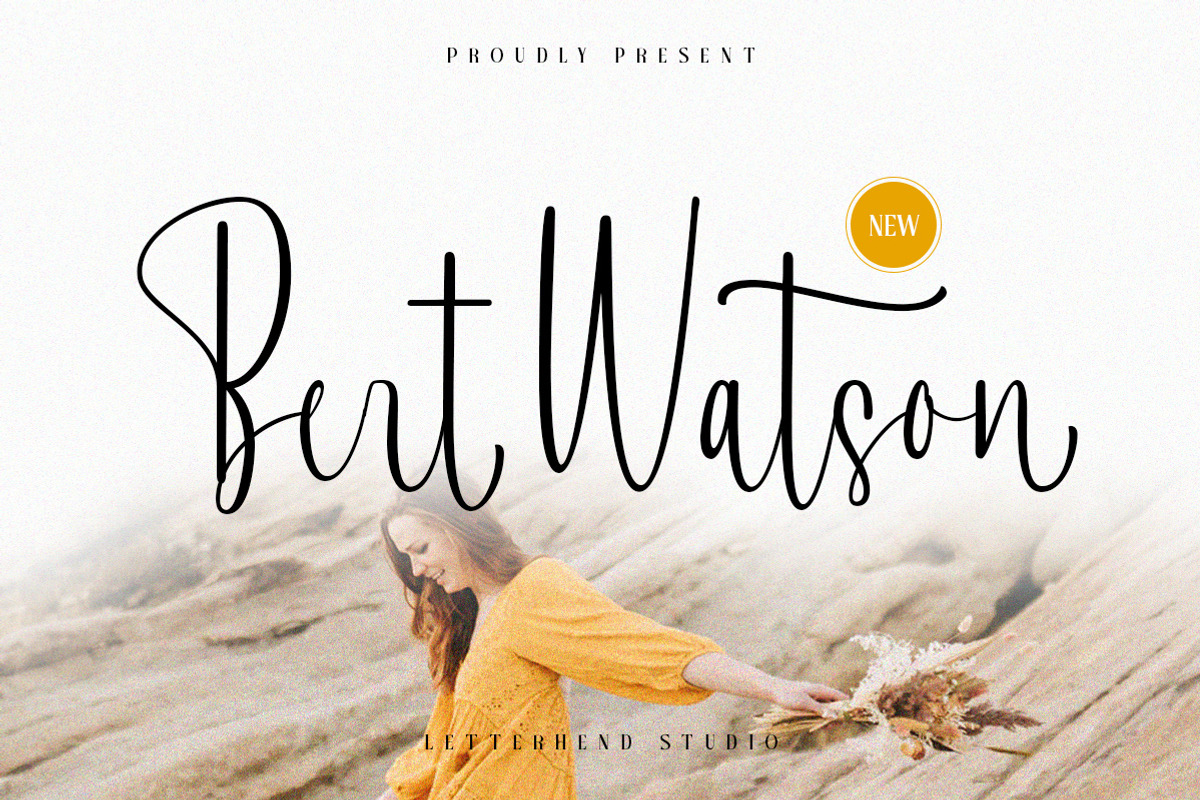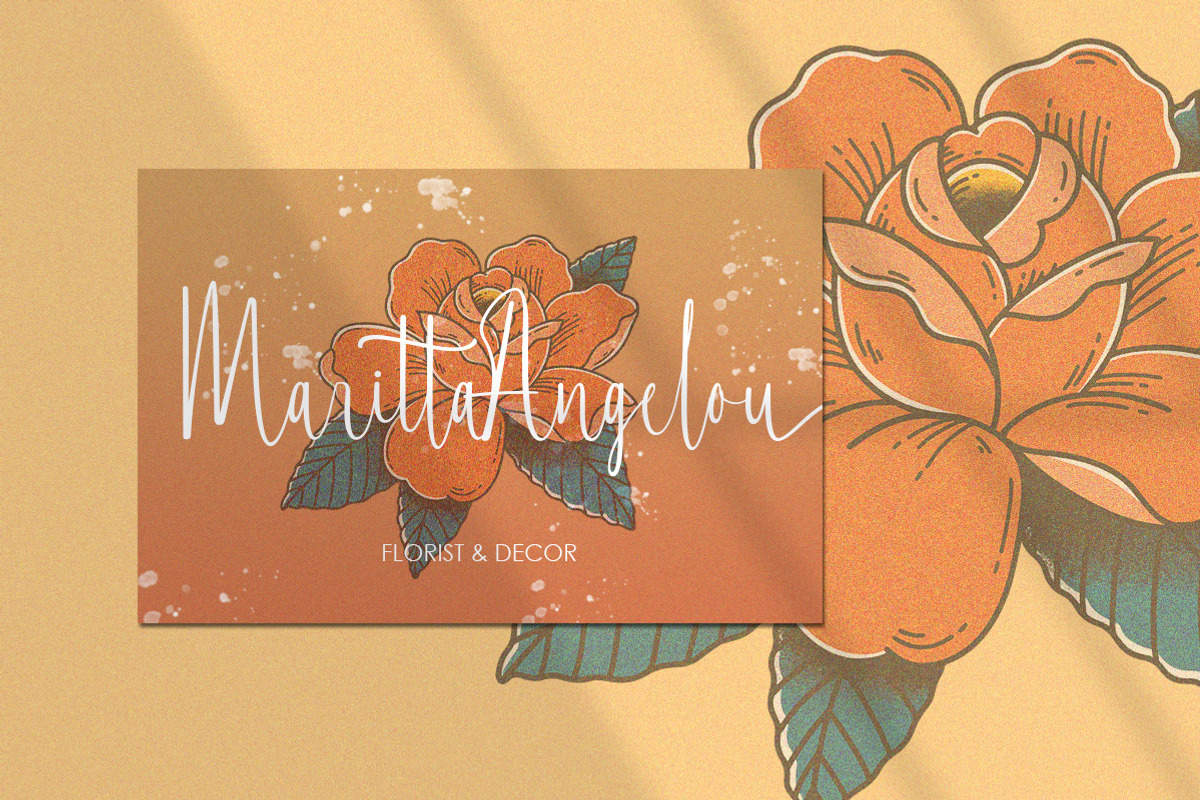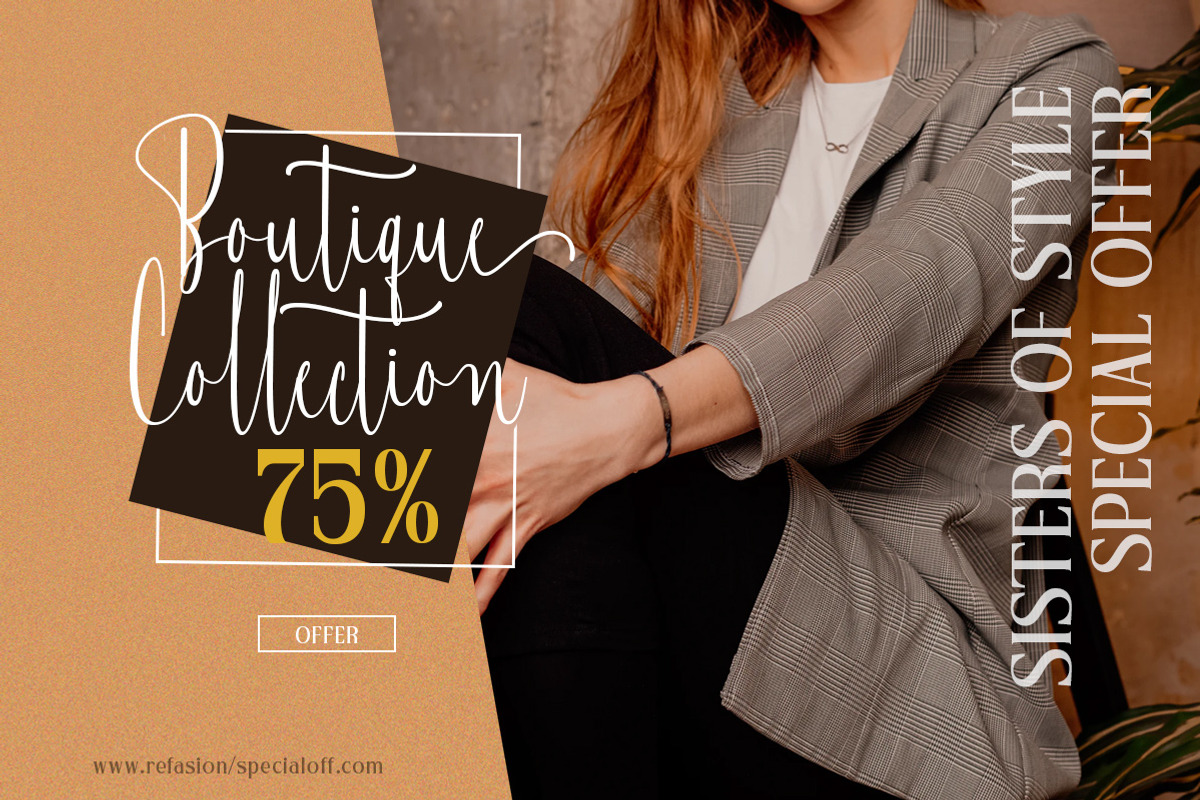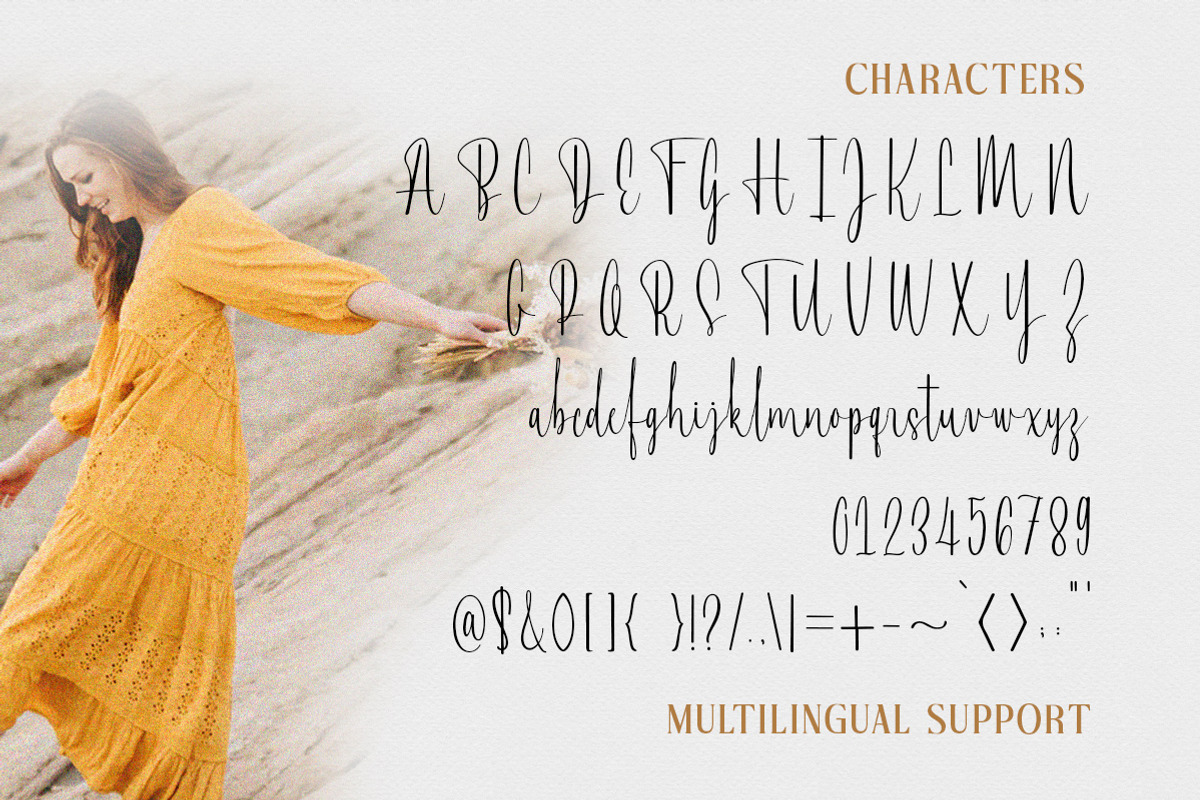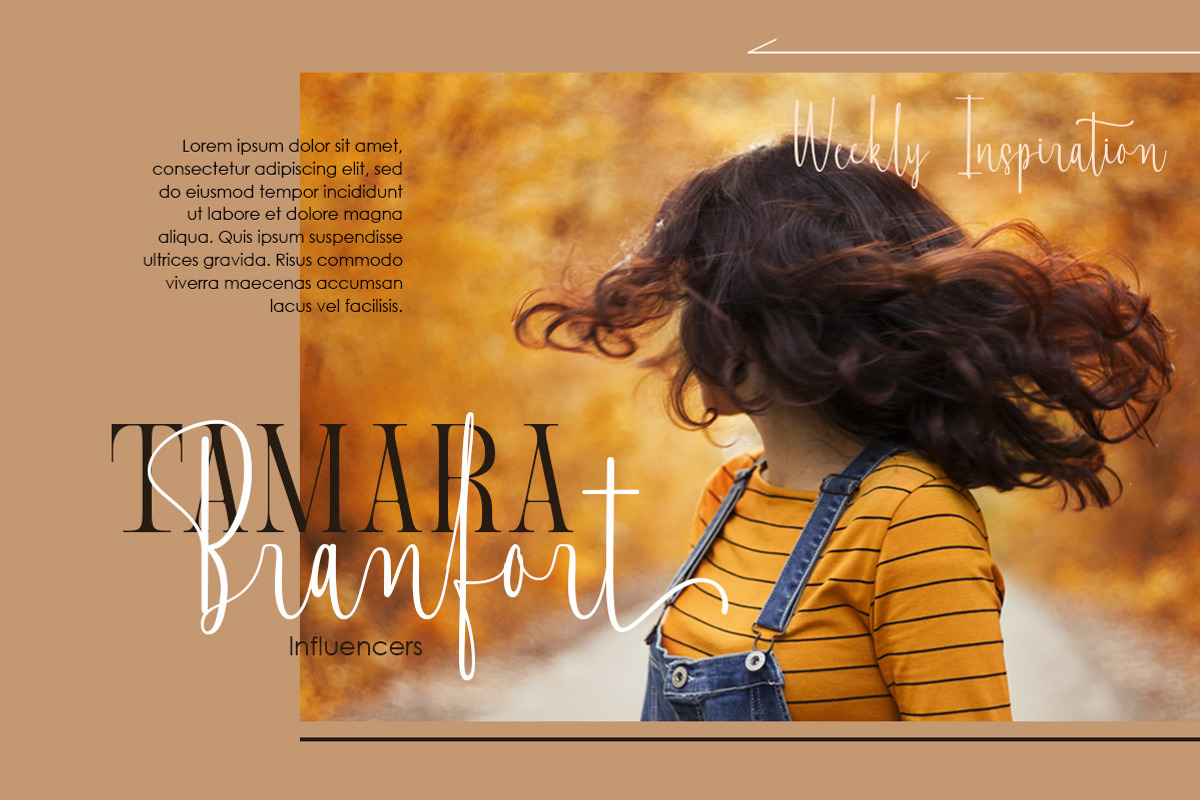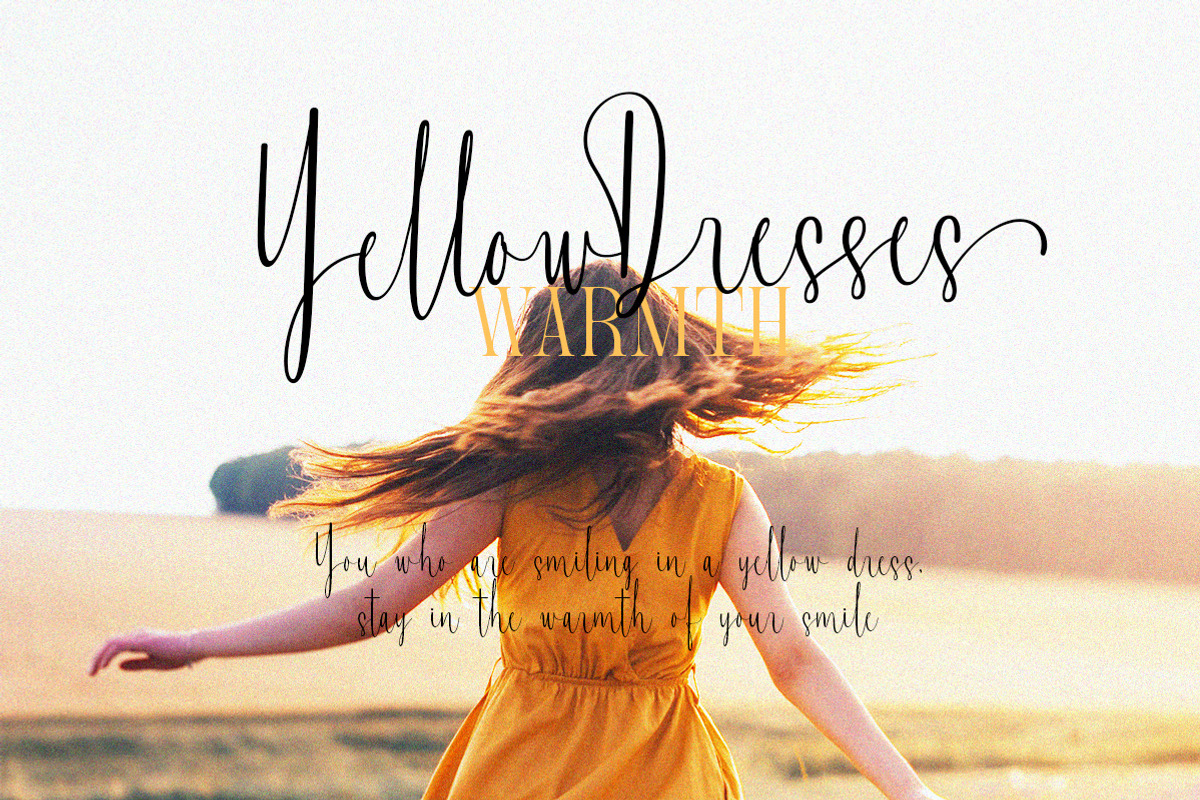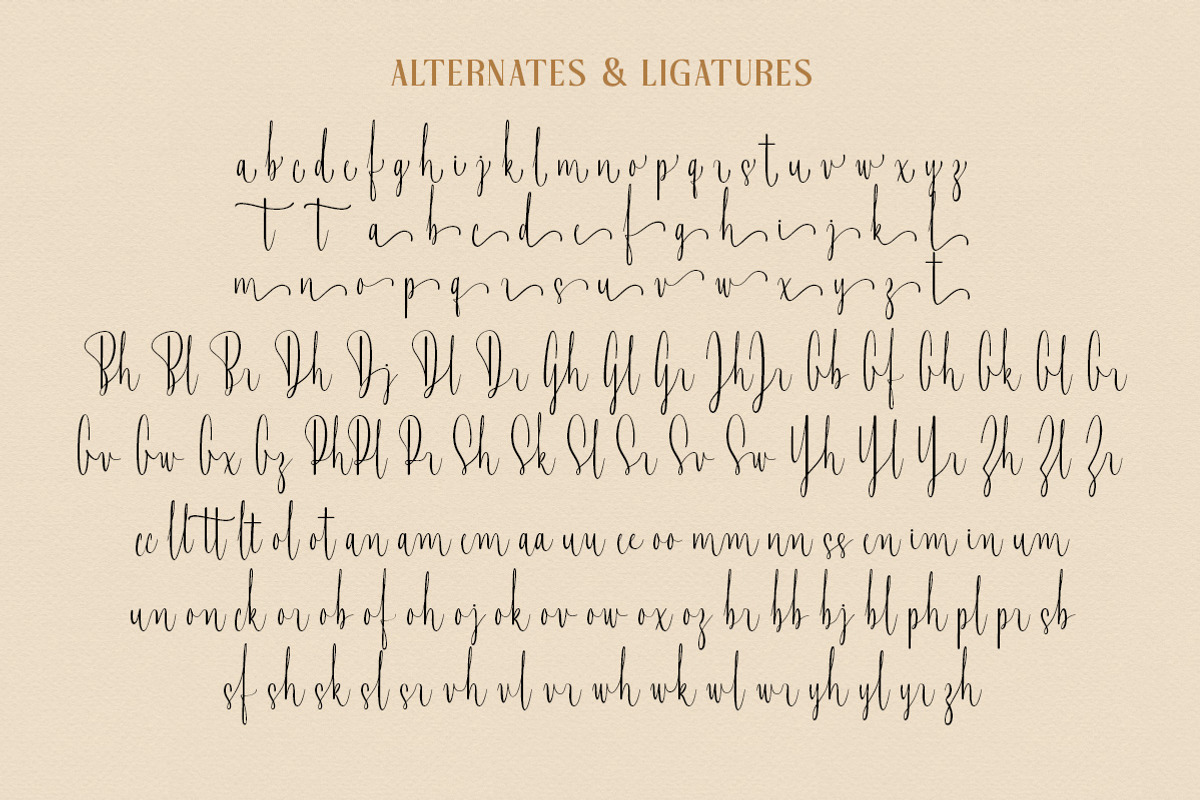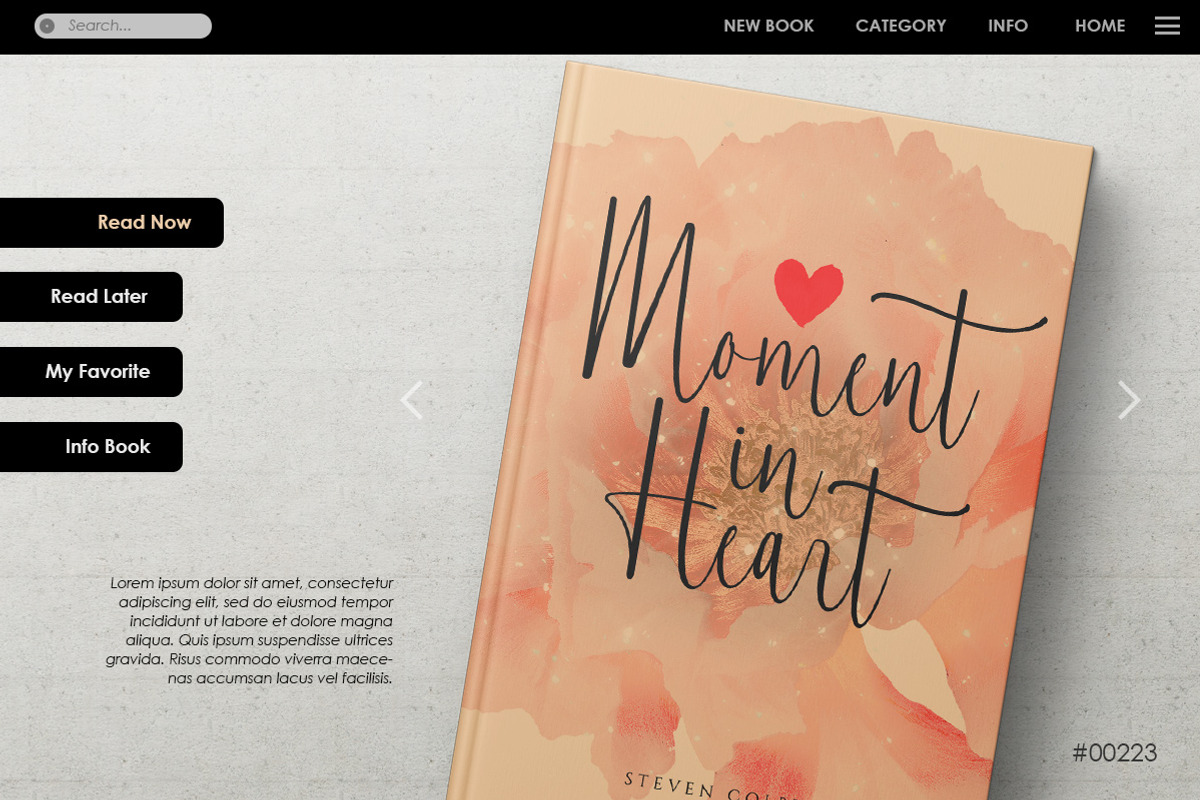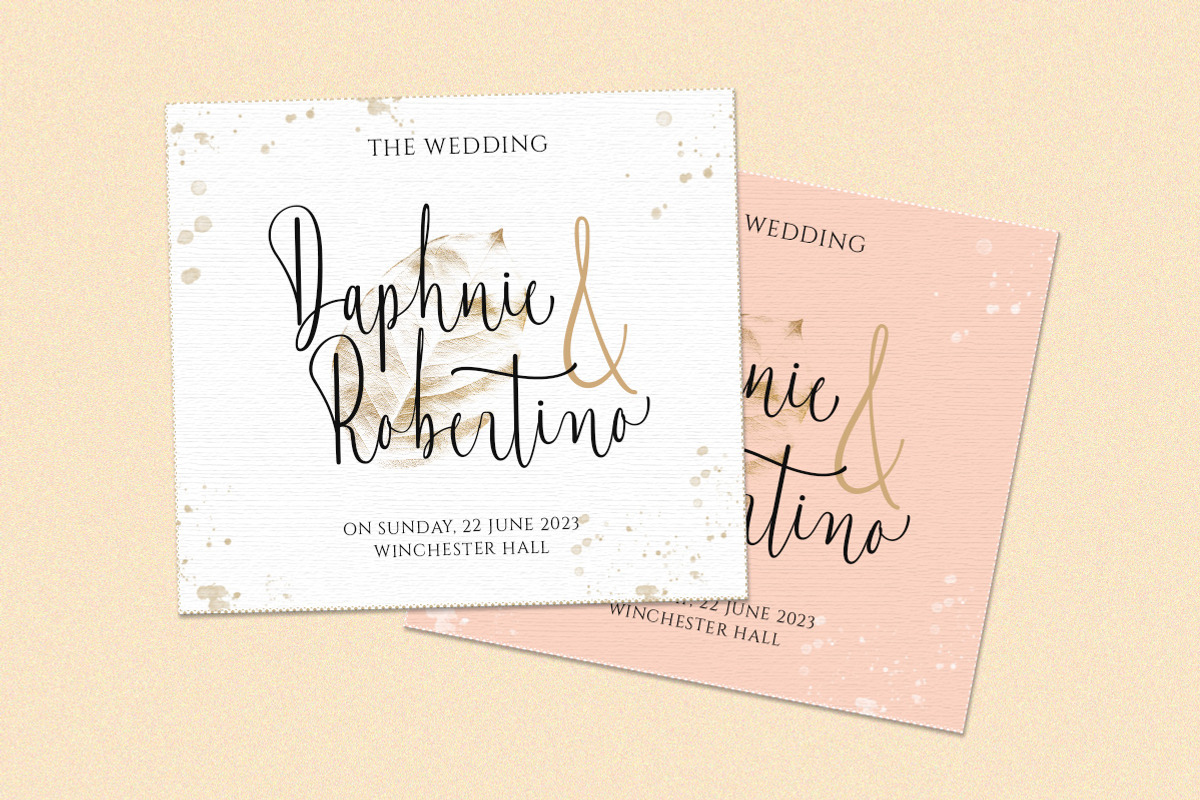
Bert Watson - Beauty Script
Bert Watson is a beauty script based on a modern calligraphy with natural hand writing look and feel. It can be used as digital signature as well. It has many alternates and ligatures which contain many swashes that you can play with. This type of font perfectly made to be applied especially in logo, and the other various formal forms such as invitations, labels, logos, magazines, books, greeting / wedding cards, packaging, fashion, make up, stationery, novels, labels or any type of advertising purpose.
- alternates and ligatures
- swashes